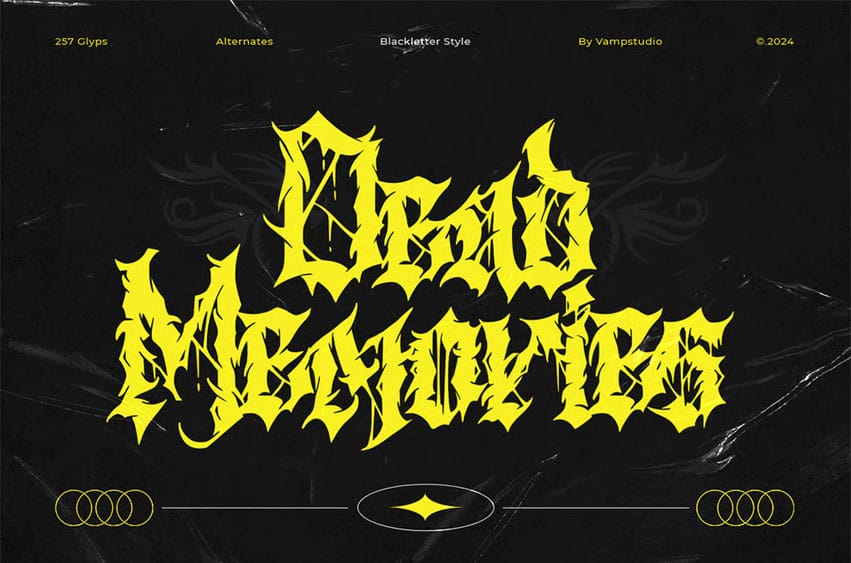
Dead Memories Font is an extreme blackletter display font inspired by death-metal typography, underground music culture, and raw street aesthetics. Designed with sharp edges, chaotic strokes, and a high-impact visual style, this typeface is perfect for loud, bold, and rebellious graphic design projects.
Its unique handcrafted look makes it ideal for album covers, concert posters, streetwear branding, horror artwork, merchandise, gaming graphics, and any design that demands a fierce and electrifying atmosphere.
- Extreme blackletter / metal display style
- 257 glyphs with alternates
- Uppercase & lowercase letters
- Numbers & punctuation
- Symbols & special characters
- Perfect for metal logos, posters, horror designs, and branding